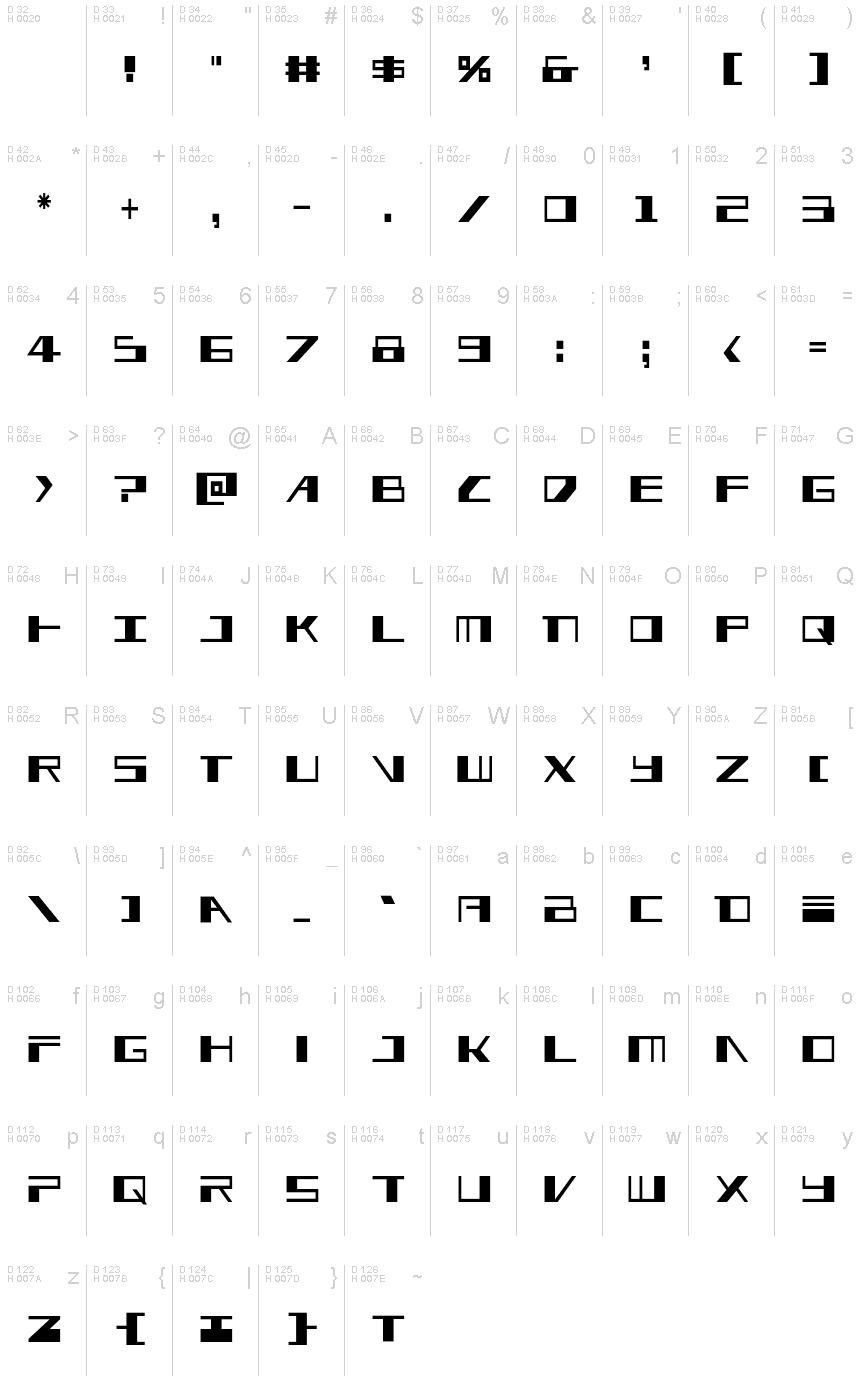
3AGLE Condensed
Elevate your designs to new heights with 3AGLE Condensed, a cutting-edge member of the 3AGLE font family by Iconian Fonts. This bold, expanded display typeface is the epitome of futuristic flair, perfectly crafted for projects that demand a modern and progressive touch. Its sleek lines and sharp angles provide an unmistakably contemporary look, ideal for branding, gaming interfaces, and tech-focused advertisements.
With 3AGLE Condensed, you're not just choosing a font; you're embracing a vision of the future where style meets innovation in every character.